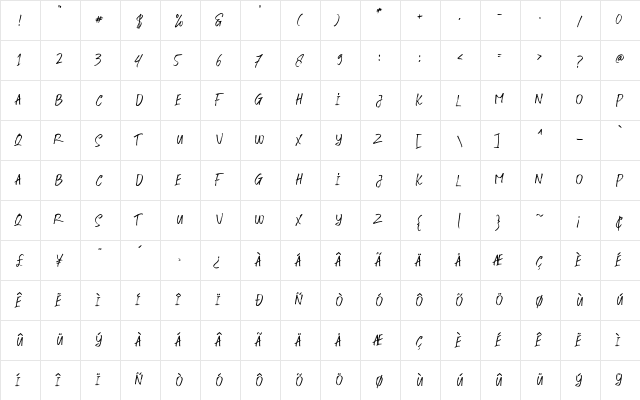
Fusterd Brush Two Regular
Design Context for Fusterd Brush Two Typeface
Fusterd Brush Two flows with the natural rhythm of handwritten lettering, making it ideal for designs that call for warmth and personal expression.
Font Pairing: Combine Fusterd Brush Two with a simple geometric sans for maximum contrast — the tension between flowing curves and clean structure is a classic typographic pairing.
Pro Tip: Use Fusterd Brush Two for short runs of text — names, titles, or taglines. Extended body copy in script faces tires the eye quickly.